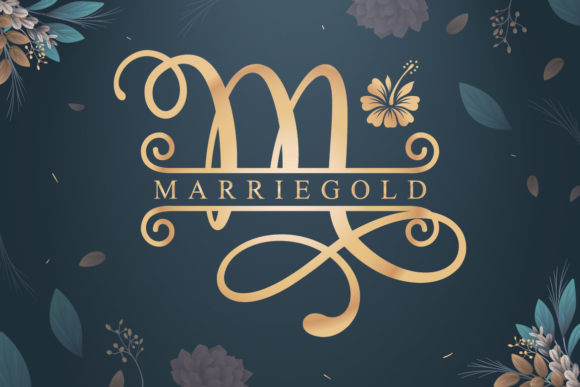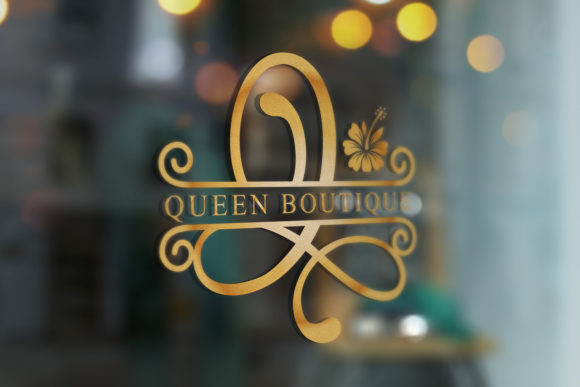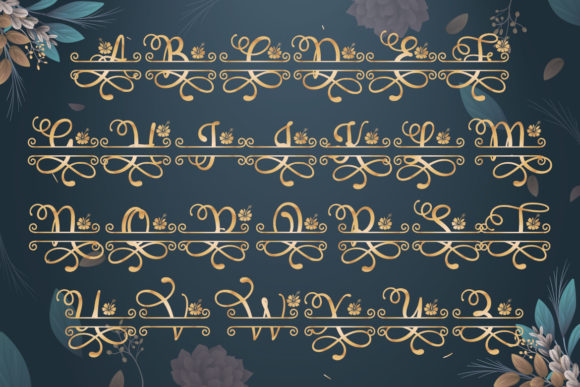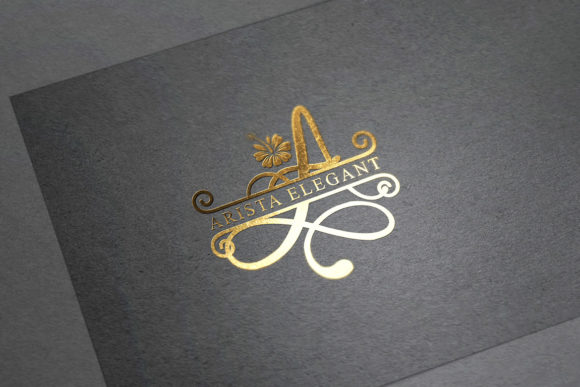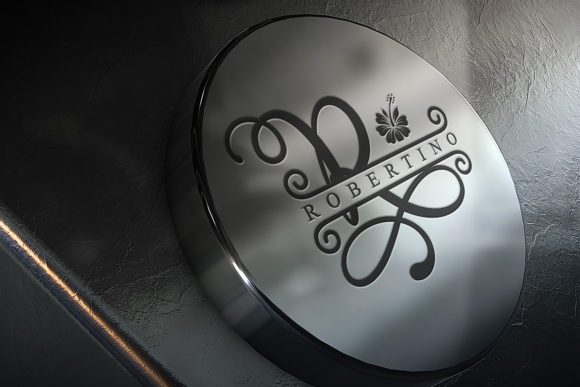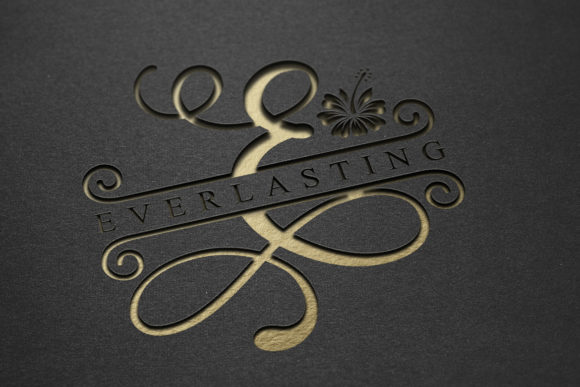
Introduction to Floral Split Font Font
Fonts play a crucial role in design, and the Floral Split Font font is a typeface that brings both character and versatility to any project. Whether you’re working on a branding project, a website, or a print design, the Floral Split Font font offers a unique style that can elevate your work.
Floral Split simplifies elegance into one truly outstanding display font.
It will elevate a wide range of design projects to the highest level, be it branding, headings, wedding designs, invitations, signatures, logos, labels, and much more .
Key Features of Floral Split Font Font
Why Choose Floral Split Font Font?
The Floral Split Font font is more than just a typeface – it’s a design tool that helps you communicate your message with style and clarity. Its unique character set and versatile design make it suitable for a wide range of applications, from elegant invitations to bold headlines.
With its carefully crafted letterforms and balanced proportions, the Floral Split Font font ensures readability and visual appeal across all mediums.
What makes Floral Split Font font special?
The Floral Split Font font stands out with its unique design, exceptional readability, and versatility across various design applications.